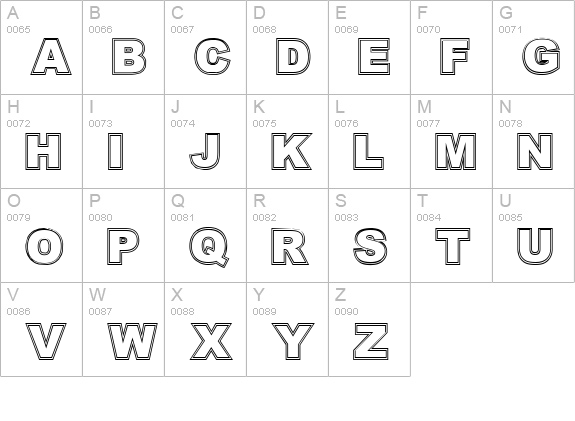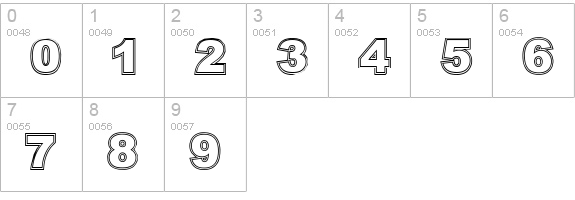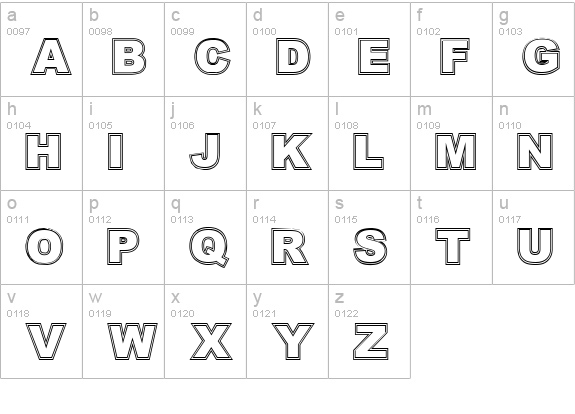
Outline Font Details
The Outline font is a stylish and modern typeface that exudes sophistication and elegance. Its clean lines and sleek design make it perfect for a wide range of design projects, from logos to branding to invitations. The Outline font features a unique outline style that adds a touch of creativity and flair to any text. The best part? This stunning font is available for free download at FontsMarket.com, making it accessible to designers and creatives everywhere. Whether you're working on a personal project or a professional assignment, the Outline font is sure to make a statement and elevate your design to the next level. Download this versatile and eye-catching font today and unleash your creativity!